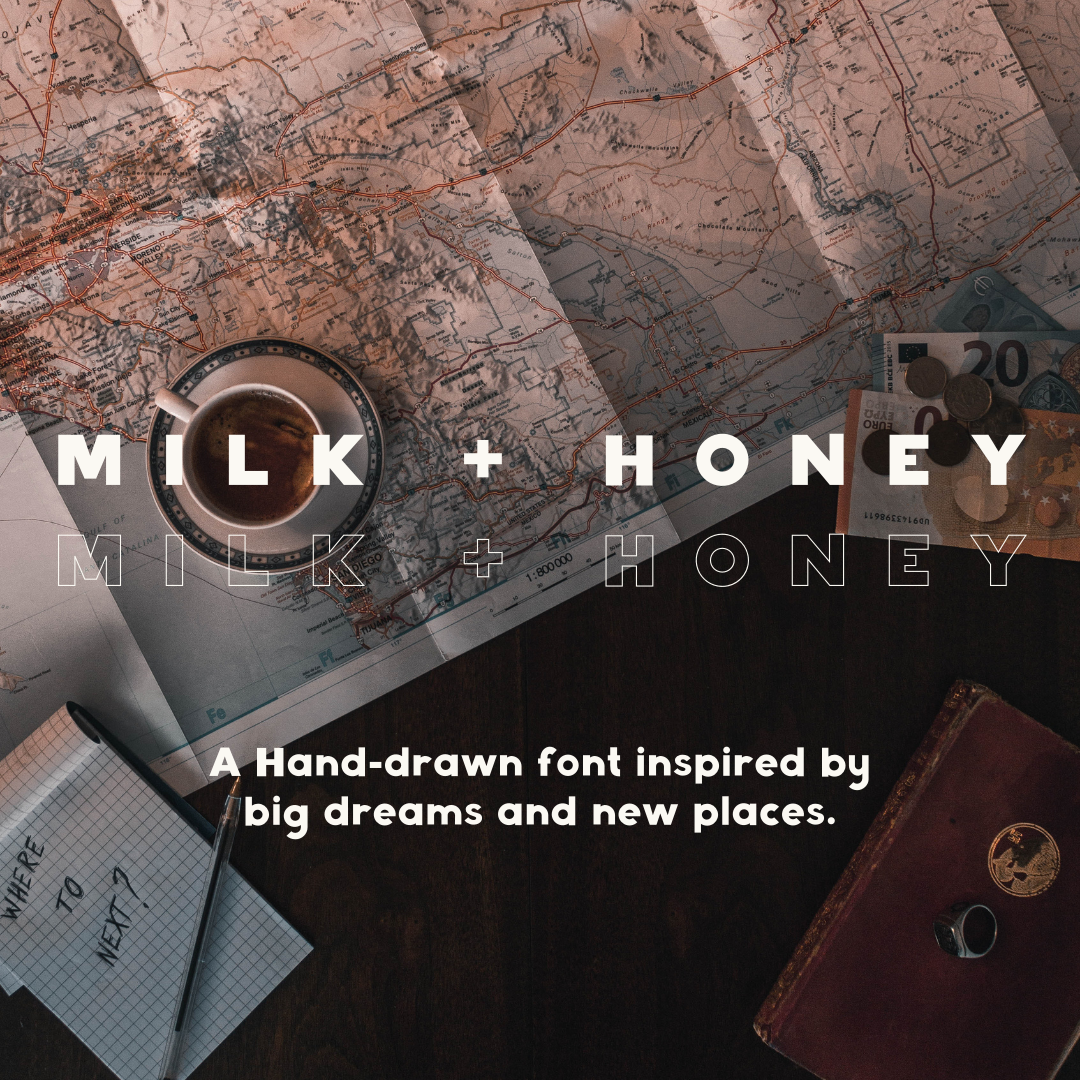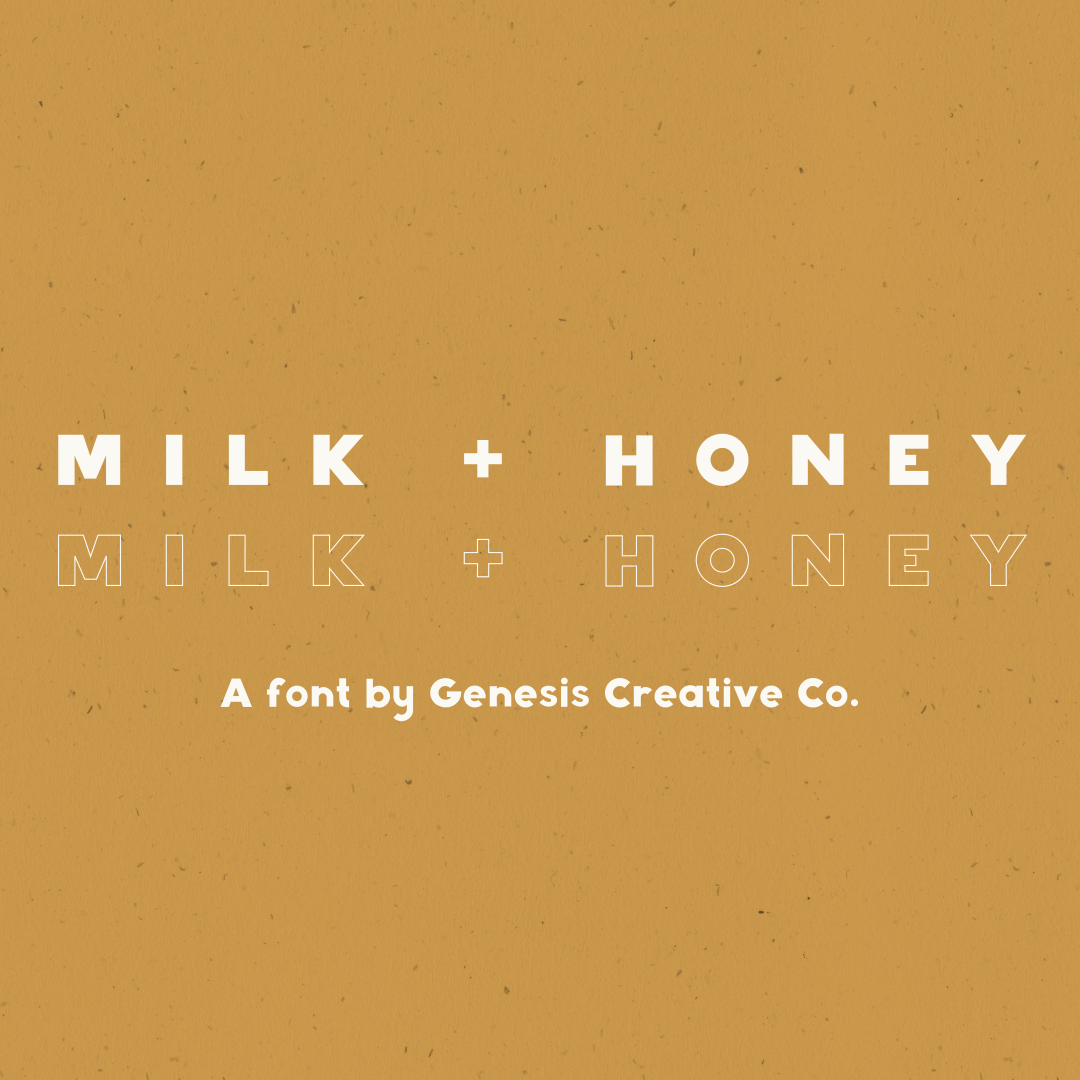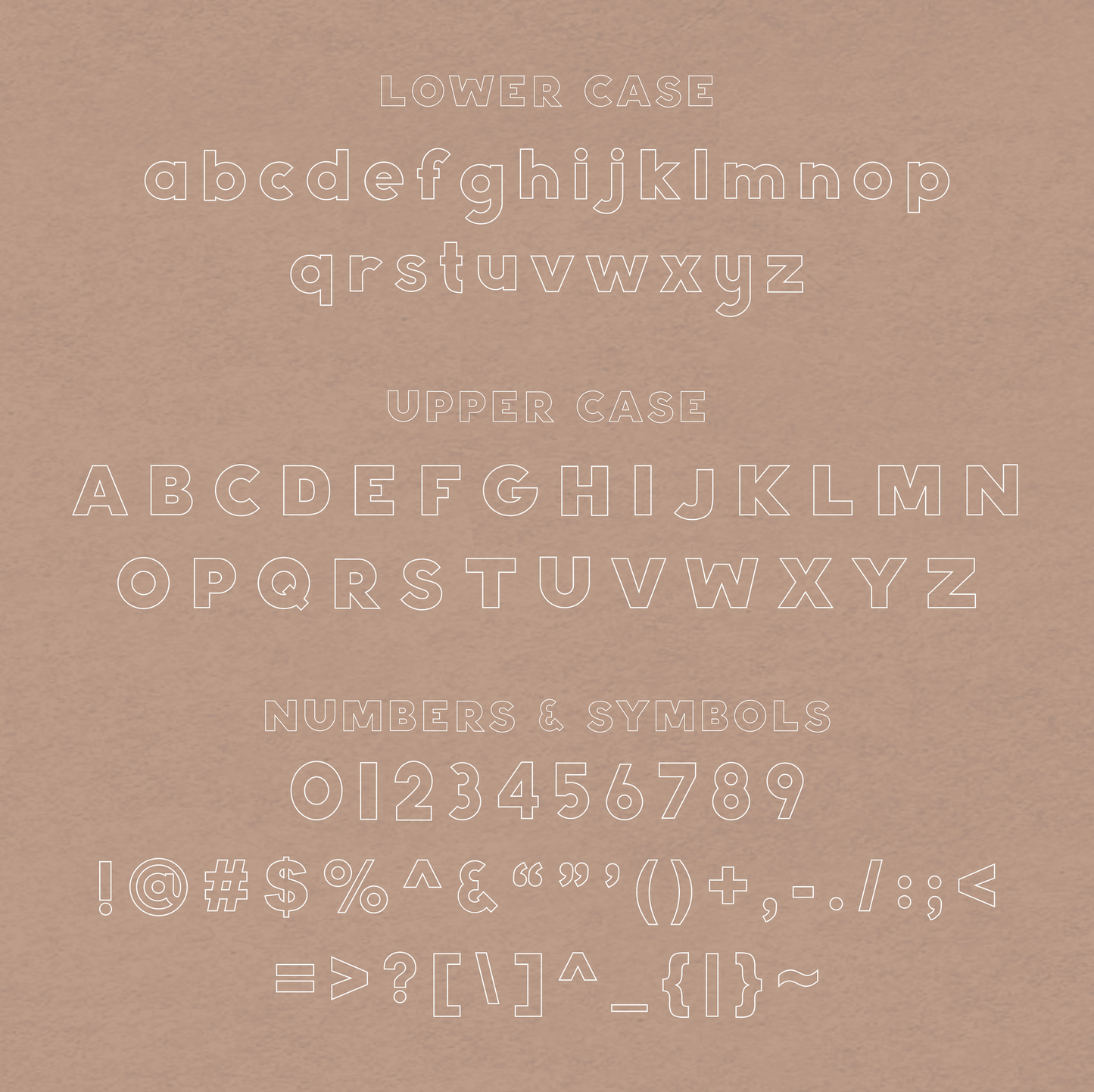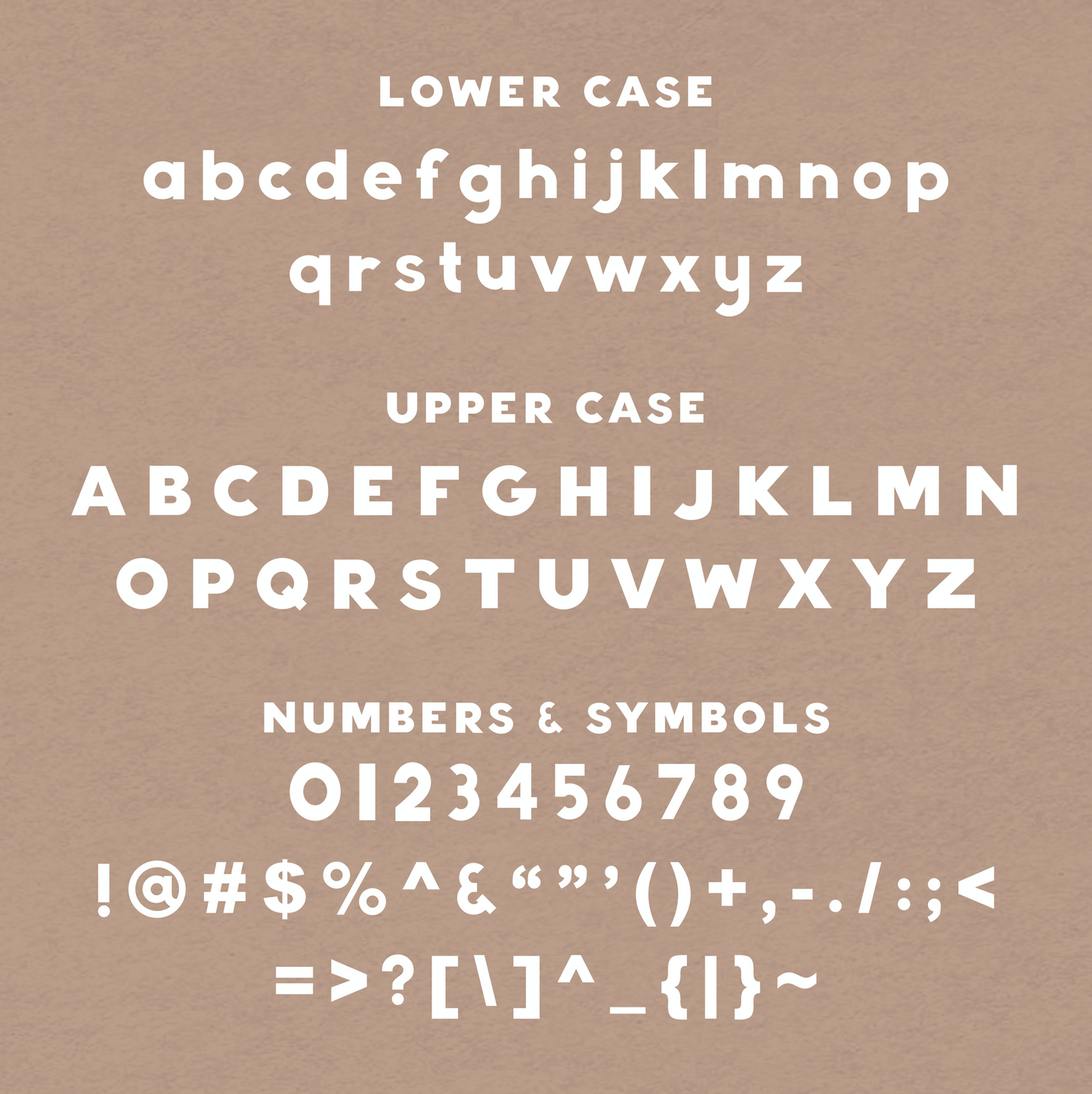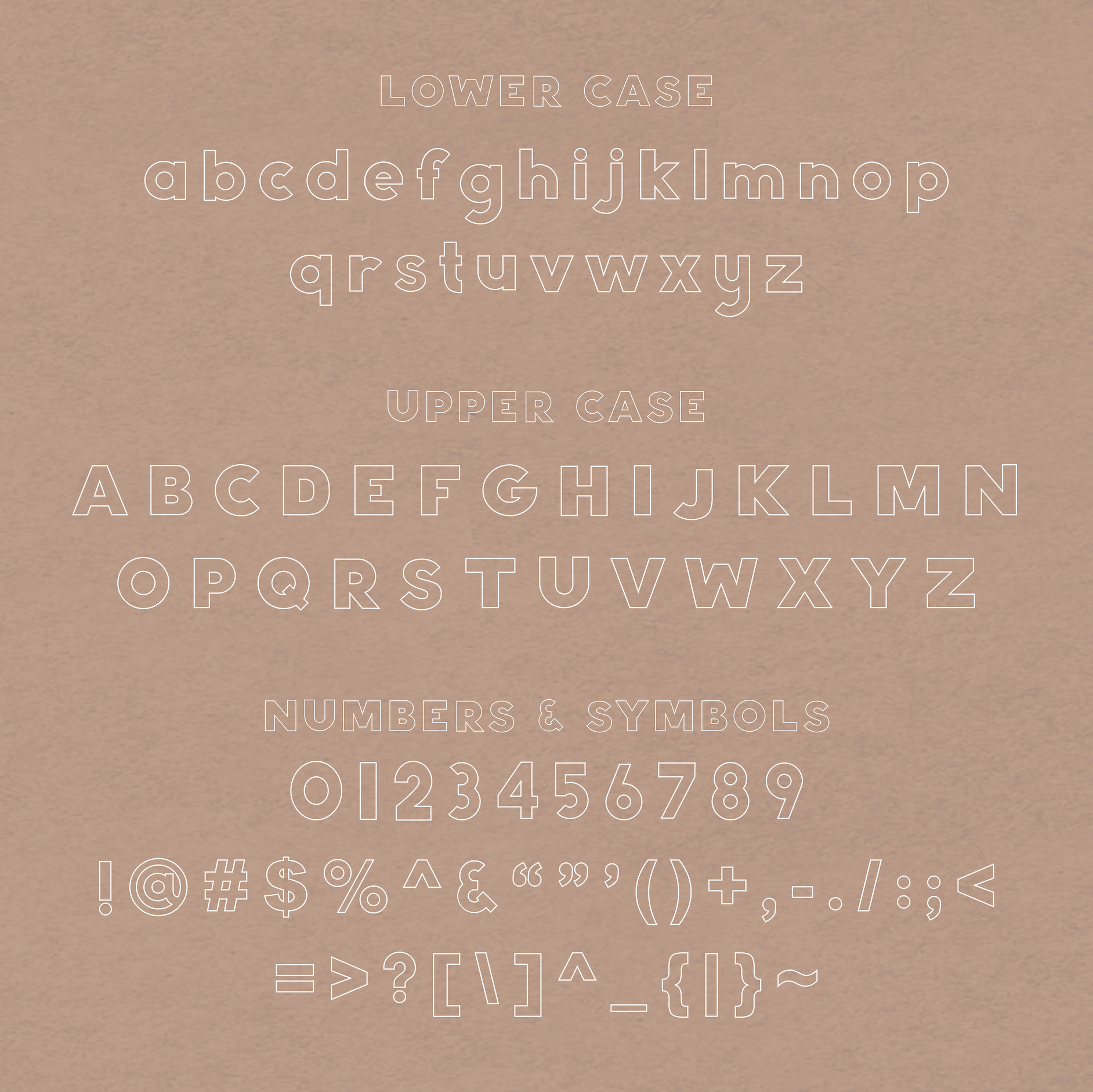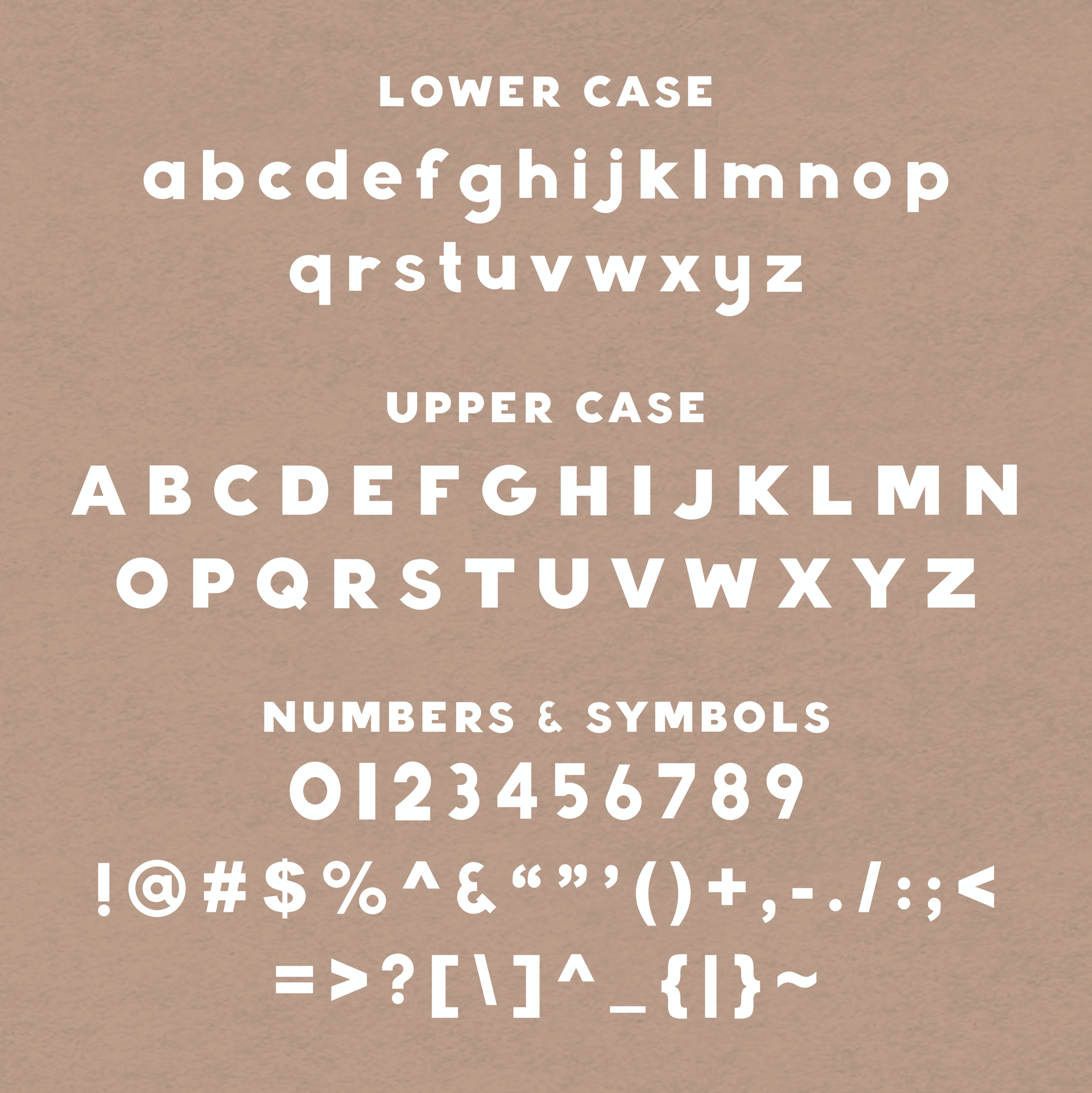
Milk + Honey Font
Milk + Honey is a bespoke, hand-drawn font duo. It is a bold, imperfect font featured in solid and hollow styles. Milk and Honey is the ideal heading font, and the hollow style is great for layering with script fonts.